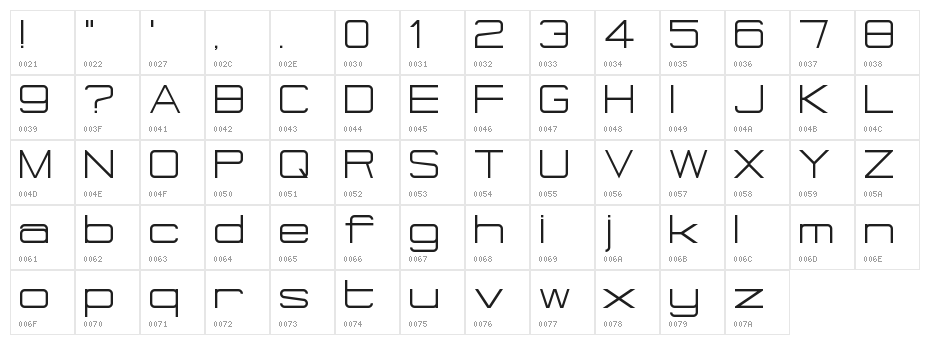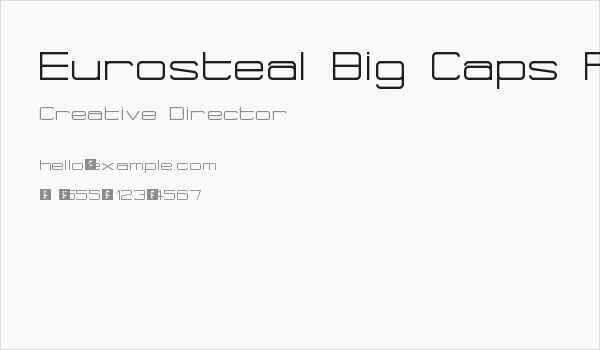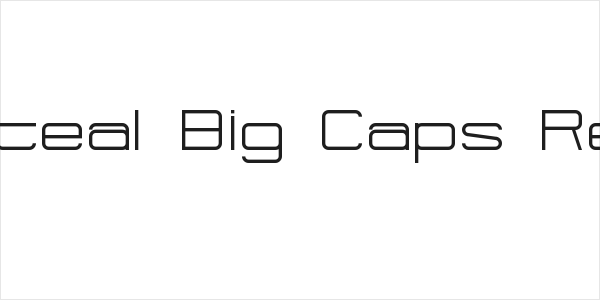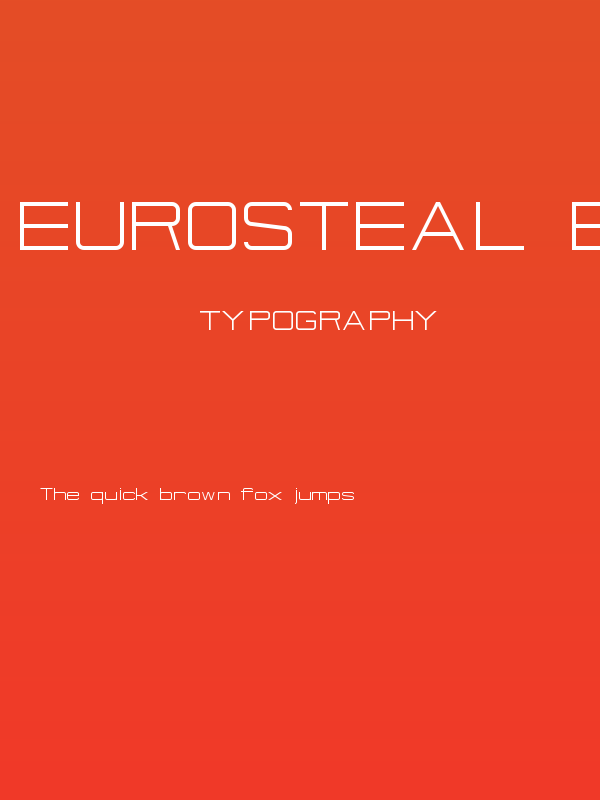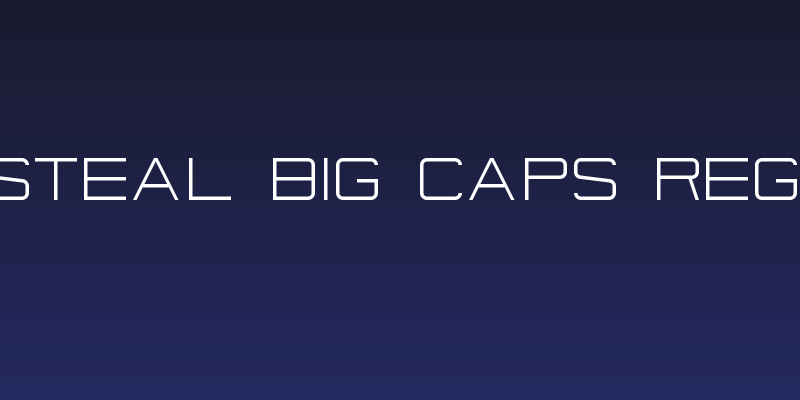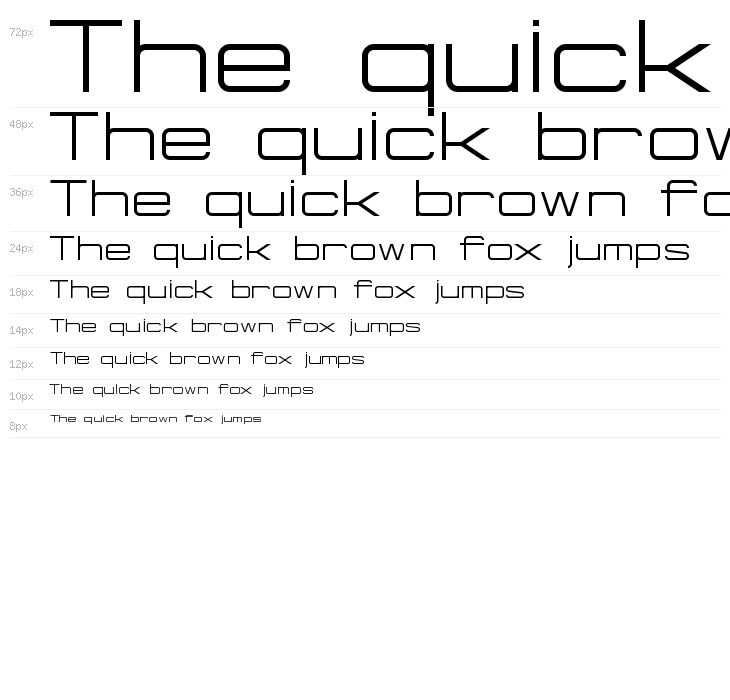
Eurosteal Big Caps Regular Font
Eurosteal Big Caps Regular Description
This font features a sleek, modern design with a geometric structure. The characters are composed of clean, straight lines and rounded corners, giving it a futuristic and technical appearance. The uppercase and lowercase letters maintain a consistent height, contributing to a uniform look. The numerals are designed with the same geometric precision, ensuring readability and style. Special characters are minimalistic, aligning with the overall aesthetic. This font is ideal for projects that require a contemporary and sophisticated touch.
| Proposed Projects | Ideal for technology branding, modern web design, and futuristic posters. |